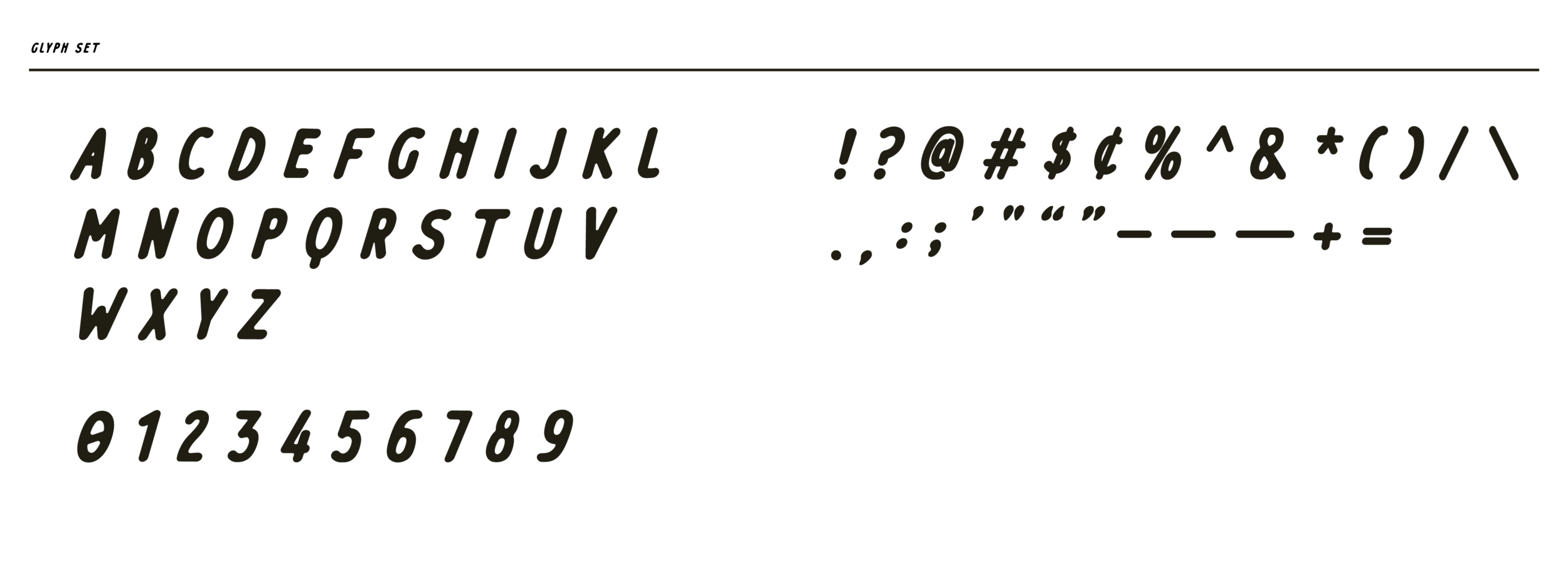
Wide Rule
A hand-rendered type reminiscent of school notes and doodles we all did to pass the time during class. Offered in two styles: regular and italic. YRT Wide Rule works great when utilized at small sizes for support copy, little words or small sentences.